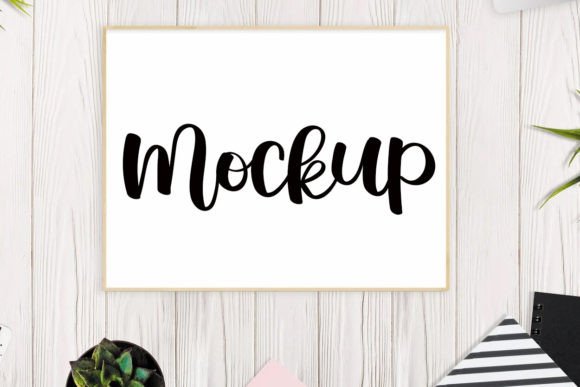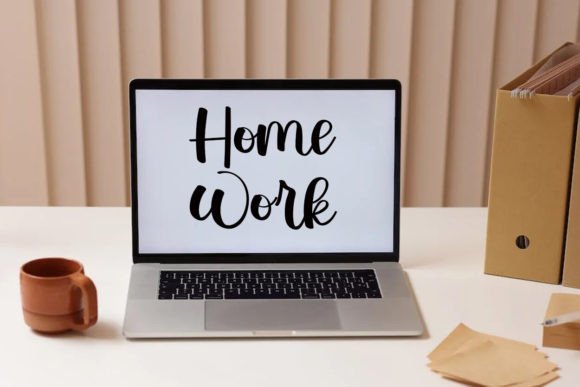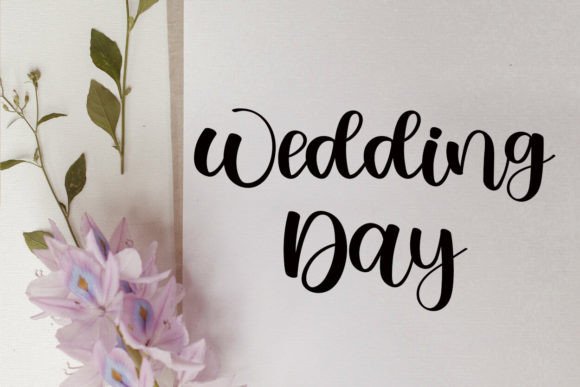
Introduction to Nighty Font
Do you remember that moment when you stumbled upon the perfect font for your design project? The one that made everything come together seamlessly, like a puzzle piece fitting into place? For many designers, that moment is a rush of excitement and a sense of accomplishment. It’s a feeling that’s hard to replicate, but with the Nighty Font, you might just experience it again.
Nightly Font is a stunning addition to any designer’s toolkit, offering a fresh and beautiful aesthetic that’s perfect for a wide range of creative projects. Whether you’re crafting a YouTube banner, designing a wedding invitation, or creating ID cards, this high-quality font is sure to elevate your design to the next level. And the best part? It’s available for a free download, making it an invaluable resource for designers of all levels.
Key Features of Nighty Font
- High-quality, unique design suitable for creative projects
- Transparent background for seamless integration into designs
- Large character set with extended Latin support for diverse applications
- Resolution-independent design for use in high-resolution and low-resolution environments
- Comes in a range of font sizes, from 12pt to 72pt, ideal for various design elements
- Perfect design resource for graphic designers, digital artists, and web developers
Honest Review: Nighty Font
I recently stumbled upon the Nighty Font, and I’m excited to share my thoughts on this high-quality design resource. As a designer, I appreciate fonts that can add a unique touch to my creative projects, and Nighty Font definitely delivers.
What works well: ✨ The Nighty Font is available for free download, which is a huge plus for designers on a budget. The transparent background makes it easy to overlay on any image or design element. I also appreciate the font’s versatility, as it can be used in a variety of contexts, from branding to editorial design.
Here are some specific features that I like:
- Transparent background for easy overlaying
- Perfect for branding, editorial design, and more
Limitations: ⚠️ While the Nighty Font is a great addition to any design library, it’s not ideal for use in body text due to its decorative nature. It’s better suited for headlines, titles, and other design elements where you want to make a statement.
Overall impression: I’m impressed with the Nighty Font’s unique style and versatility. While it may not be suitable for all design applications, it’s a valuable resource for designers looking to add some creativity to their projects. With its high-quality design and free download, it’s definitely worth checking out.
Customizing the Font
When using the Nighty Font in your design project, you can customize its appearance by adjusting the font size, color, and style. You can also use the font in conjunction with other design elements, such as images and graphics, to create a unique and eye-catching visual effect.
The Nighty Font is commonly used in a variety of design projects, including:
- Logos and branding materials
- Graphics and illustrations
- Presentations and documents